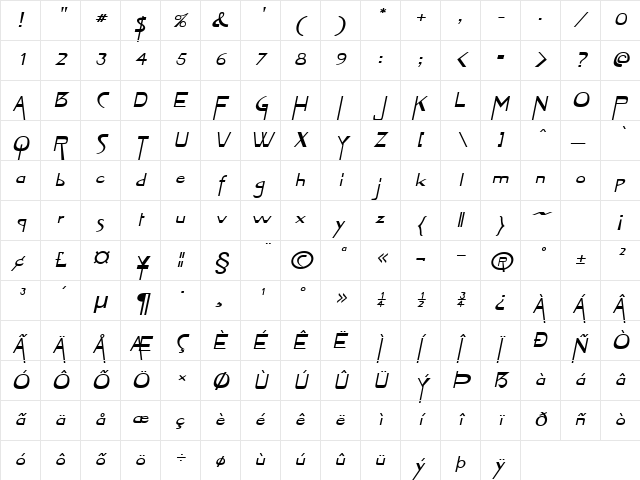
TabletExtended Italic Free Font
TabletExtended Italic
TabletExtended Family
Complete TabletExtended Italic glyph index. Displaying only characters natively supported by TabletExtended Italic font.
Design Context for TabletExtended
TabletExtended is a composed and adaptable typeface that performs quietly and consistently across a wide range of design contexts. The slanted form adds forward momentum and visual energy.
Pro Tip: Use TabletExtended for emphasis, pull quotes, and subheadings where its slanted energy can add rhythm to the layout.